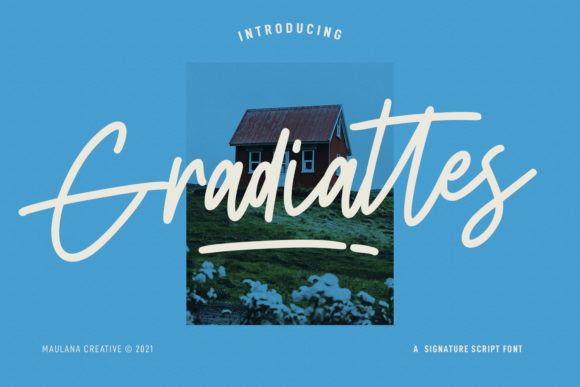
Gradiattes Script: Your Go-To Font for Elegant Branding
There is a specific moment in the design process where a project transitions from "functional" to "beautiful." It often happens when you stop looking for just any font and start looking for a typeface with a soul. For designers, entrepreneurs, and creatives who need to inject a sense of freshness and refined elegance into their work, Gradiattes Script offers a compelling solution. It is not just another display font; it is a carefully crafted tool designed to bring a delicate, refreshing aesthetic to a wide variety of projects. If you have been searching for a modern typography option that balances legibility with artistic flair, understanding the nuances of this script font is the first step toward elevating your design assets.
The Visual Personality of Gradiattes Script
When you first encounter Gradiattes Script, you immediately notice its fluidity. It captures the essence of a handwritten font but polishes it to a level of sophistication suitable for commercial use. The letterforms feature a lovely, delicate flow that mimics natural handwriting without sacrificing the consistency required for professional logo design or packaging. It feels personal and organic, yet structured enough to maintain a high-end look.
Unlike heavy brush scripts that can feel aggressive or overly casual, this typeface maintains a lightness. The strokes often have a natural variation that adds character, preventing the text from looking flat or robotic. This makes it an ideal choice for projects that require a human touch. Whether you are designing a wedding invitation or a boutique clothing tag, the font communicates care, attention to detail, and a relaxed confidence. It is the kind of font that feels like a warm greeting, making it perfect for brands that want to appear approachable yet established.
Strategic Applications: Where to Use This Script Font
Knowing where to deploy a creative font like Gradiattes Script is just as important as choosing it. Its versatility is one of its strongest assets, but it shines brightest in specific contexts. Because it is a premium font with a distinct personality, it works best where it has room to breathe and be appreciated.
Branding and Logo Design
For small business owners and entrepreneurs, your logo is your handshake. Gradiattes Script is particularly effective for brands in the lifestyle, beauty, fashion, and artisanal food sectors. Imagine this typeface used for a high-end bakery logo or a boutique florist. It immediately sets a tone of quality and craftsmanship. However, when using it for brand identity, it is crucial to ensure it reflects the brand's voice. If your brand is about luxury and elegance, this font supports that narrative perfectly.
Editorial and Publishing
In the world of publishing, headers and pull quotes need to grab attention. This script font works wonderfully for chapter titles in lifestyle magazines, blog headers, or subheadings in editorial design. It provides a necessary contrast to body text, which usually requires a highly readable serif or sans serif font. By using Gradiattes Script for headlines, you create a visual hierarchy that guides the reader's eye and breaks up the monotony of long-form text.
Digital Presence and Social Media
Content creators and marketers know that social media graphics need to stop the scroll. This font is excellent for Instagram quotes, Pinterest pins, and website hero sections. Its delicate nature ensures that even if you place it over a busy background image, it retains its elegance without creating visual clutter. For web design, it is best used sparingly—perhaps in a navigation menu or a call-to-action button—to maintain the site's professional feel while adding a touch of personality.
Packaging and Physical Products
Packaging design is where tactile experience meets visual branding. Gradiattes Script excels on physical products. Think of candle labels, cosmetic packaging, or artisanal coffee bags. The font’s elegance suggests that the product inside is just as refined as the exterior. It helps bridge the gap between the product and the consumer, creating an emotional connection before the product is even used.
The Psychology of Typography: How Font Choice Shapes Perception
Typography is rarely just about aesthetics; it is about psychology. The fonts you choose influence how your audience perceives your message. When you use a premium font like Gradiattes Script, you are signaling quality. Consumers often associate high-quality design assets with high-quality products or services. This is the concept of "perceived value."
Furthermore, script fonts generally evoke feelings of creativity, intimacy, and personal connection. In a digital world dominated by stark, geometric sans serif fonts, a delicate script stands out. It slows the reader down slightly, encouraging them to engage with the text rather than just scanning it. This can significantly boost audience engagement, particularly in marketing materials where you want the reader to feel a connection to the brand. However, this psychological benefit relies heavily on readability. If the font is too complex to read quickly, that positive association can turn into frustration.
Practical Guidance for Implementation
Integrating a new font into your workflow requires more than just installation. To get the most out of Gradiattes Script, you need to treat it as a design partner. Here is some practical advice on how to evaluate fit, pair fonts, and handle licensing.
Ultimately, Gradiattes Script is more than just a collection of vector points; it is a tool for storytelling. By understanding its visual strengths and applying it thoughtfully to your branding, marketing, and design projects, you can create a visual identity that feels refreshing, elegant, and deeply human. Whether you are refreshing a brand identity or launching a new product, this typeface offers the delicate touch needed to make your work stand out.